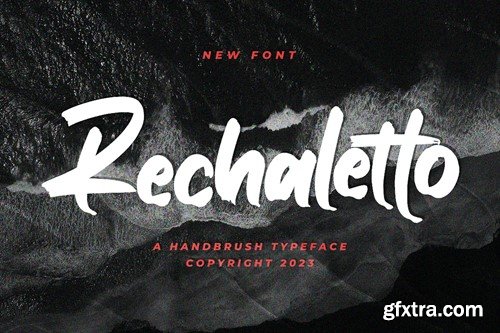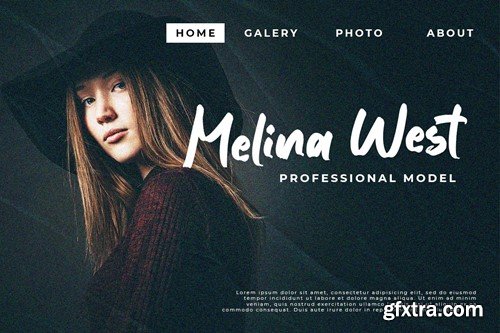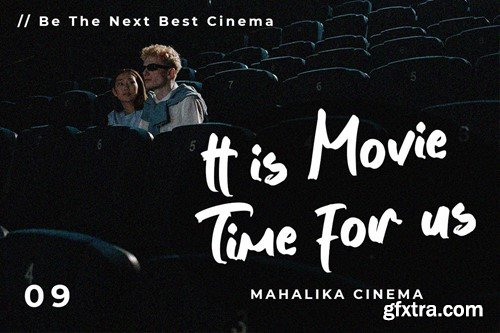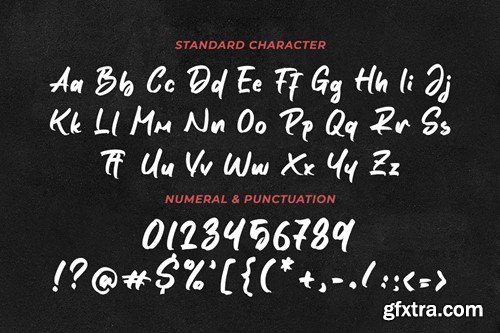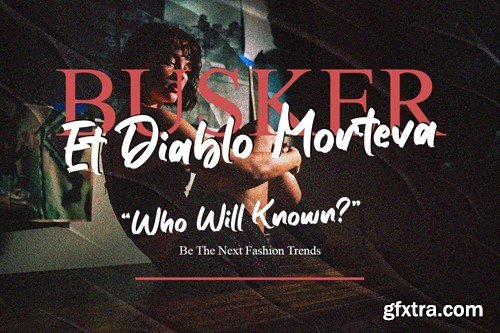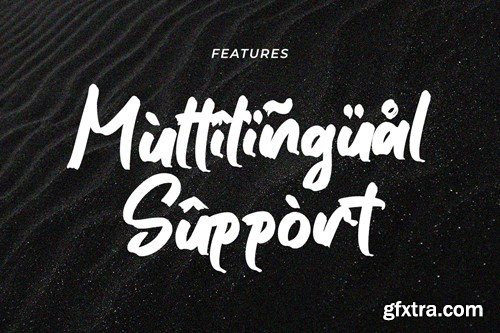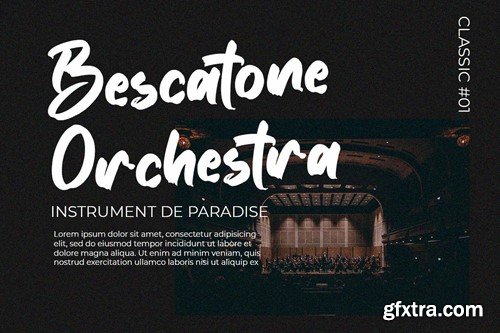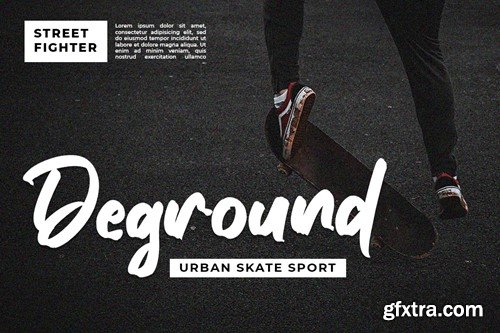
Rechaletto - Brush Font
Rechaletto is a brushed script font featuring charming, playful characters that seem to dance along the baseline. Add this font to your most creative ideas, and notice how it makes them stand out! What you get: PUA encoded = Accessible in the Adobe Illustrator, Adobe Photoshop, Adobe InDesign, even work on Microsoft Word. PUA Encoded Characters - Fully accessible without additional design software. Thank You